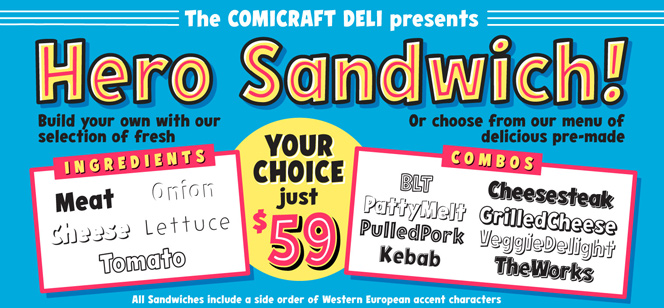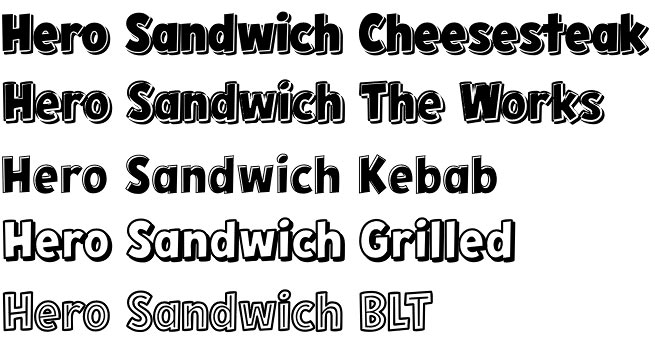
Hero Sandwich Combos
Hero Sandwich Combos by John Roshell (Comicraft type foundry) is a set of eight pre-layered comic font combinations perfectly suited and ready to serve wherever a funny, cool and vivid lettering is needed. These spicy ‘sandwich combos’ are composed of five fresh and nutritious ingredients named Meat, Onion, Cheese, Lettuce, and Tomato. They offer all the basic effects such as inline, outline, shadow, which after stacking form the complete breakfast of champions – your Hero Sandwich. Depending on your typography taste and demands you can choose from the Hero Sandwich Combos menu: Cheesesteak, The Works, Kebab, Pulled Pork, Grilled Cheese, BLT, Veggie Delight, or Patty Melt – a true visual feast.
John “JG” Roshell is American type designer, considered a pioneer in the digital comic lettering design. He is renowned for the hundreds of typefaces used in many of the comic bestsellers like Spider-Man, Superman and the X-Men. In 1992 John Roshell and Richard Starkings founded Comicraft – the America’s premier comic book lettering studio. Check their HighJinkies font, Hush Hush font.